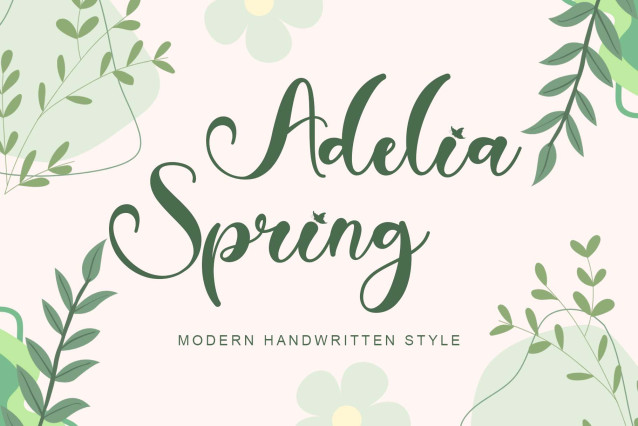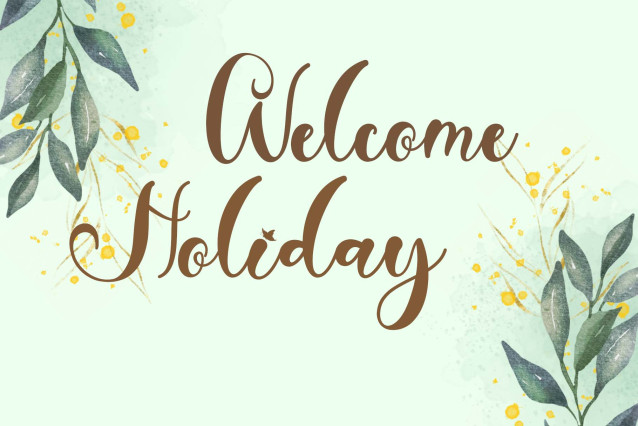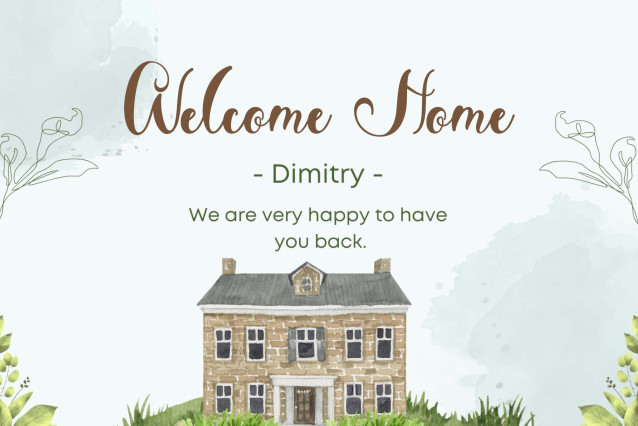
Adelia Spring Font
Adelia Spring Font is a beautiful and elegant handwritten font. This font is equipped with uppercase, lowercase, numerals, punctuations and multilingual support. It is very suitable for use in spring, holiday, summer, vacation, christmas, banners, invitations, branding, stickers, posters and others.